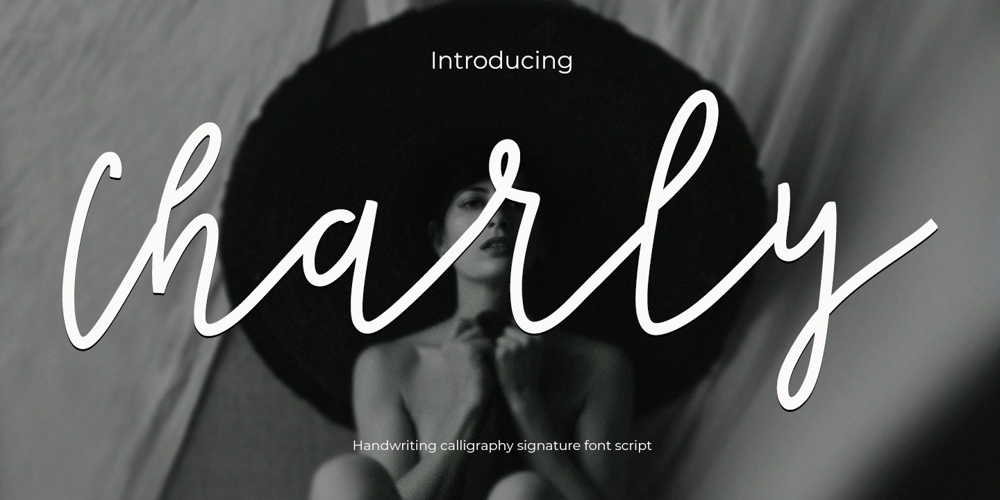
Charly
Charly font
Charly Font Family was designed by Muhammad Zaini and published by Cocodesign. Charly contains 1 styles and family package options. Charly Script is a modern calligraphy signature design, including Regular. This font is casual and beautiful with swash. Can be used for various purposes. such as logos, product packaging, wedding invitations, branding, headlines, signage, labels, signatures, book covers, posters, quotes, and more.